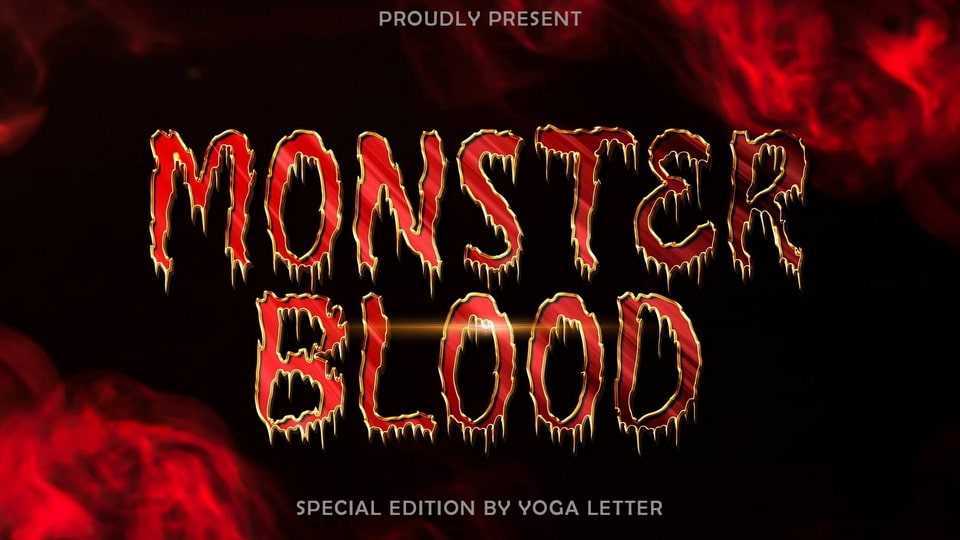
Download Monster Blood font, a unique horror typeface with a blood-like melt in every letter. Monster Blood font is perfect for Halloween moments, movie titles, logos, book covers, horror stories and more.